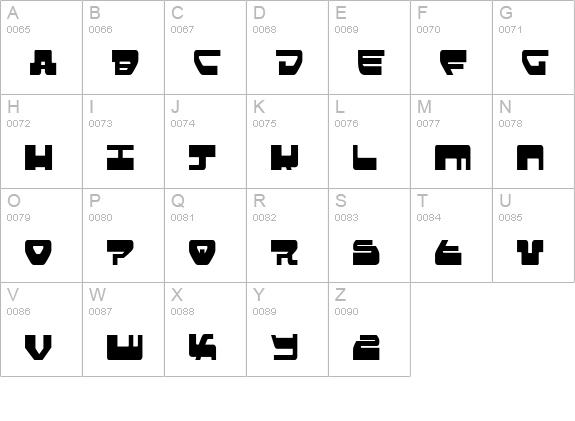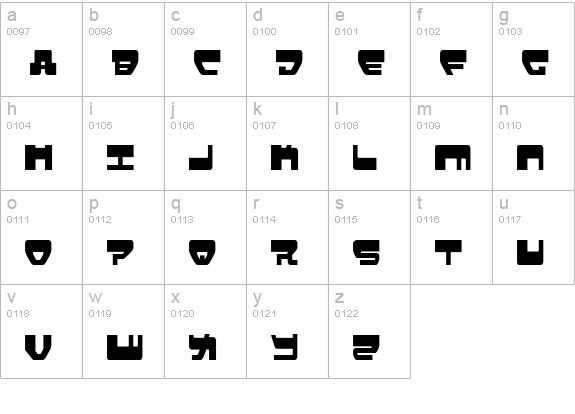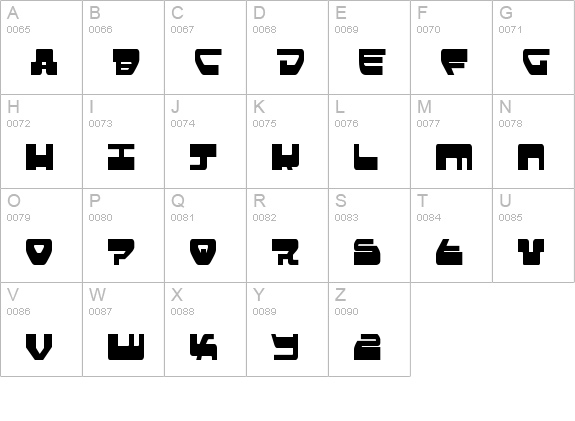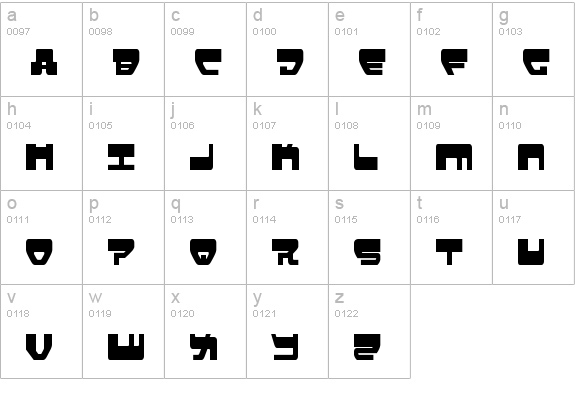
Loveladies Condensed is a distinctive, condensed-width variant in the Loveladies typeface family \xE2\x80\x94 well suited to design and typography projects.
Loveladies Condensed font is a sleek and modern typeface that exudes elegance and sophistication. Its condensed design makes it perfect for creating eye-catching headlines, titles, and branding materials. The clean lines and subtle curves of this font give it a timeless appeal that is both versatile and stylish. Best of all, Loveladies Condensed font is available for free download at FontsMarket.com. Whether you're working on a personal project or a professional design, this font is a must-have in your collection. Don't miss out on the opportunity to add this beautiful typeface to your creative arsenal today.